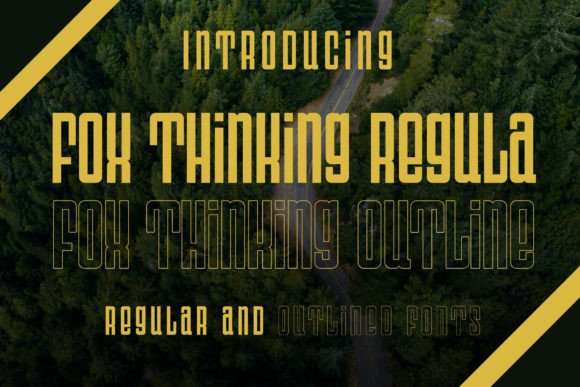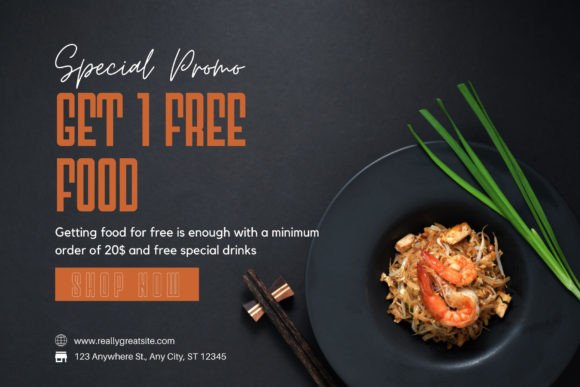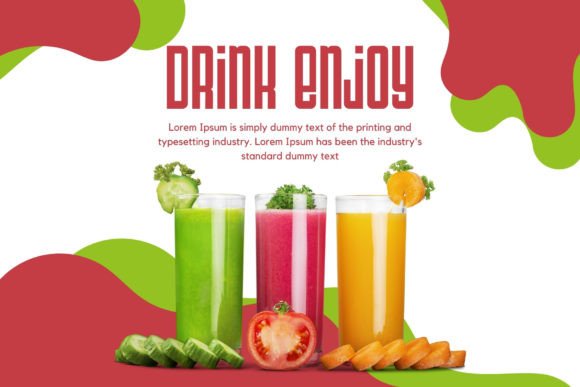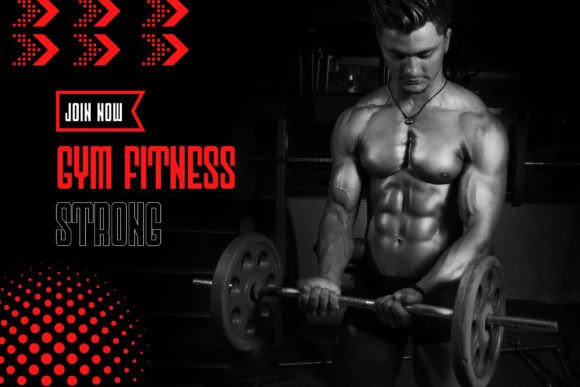
About Fox Thinking Font
Fox Thinking is a cool and stylish slab serif font. It will be an incredible asset to your fonts’ library, as it has the potential to elevate any creation.